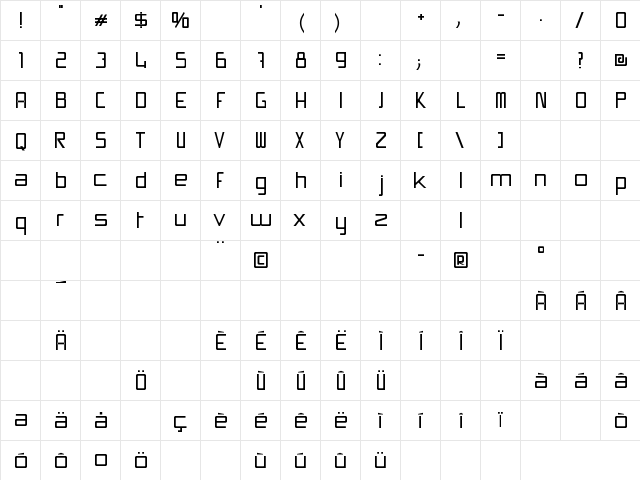
Swissmade Regular
Design Context for Swissmade Typeface
Swissmade is a composed and adaptable typeface that performs quietly and consistently across a wide range of design contexts.